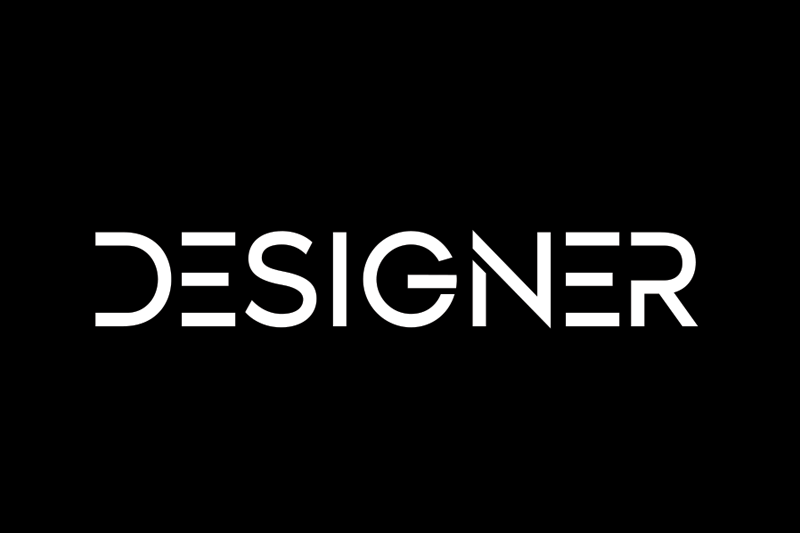
Designer Font
Designer Font is modern Various font. Made for any professional project branding. Made from font designer Dika. it will make your design project more beautiful. It is the best for branding, printing, wedding and quotes. Every letter has a unique and beautiful touch. The font is suitable for any design like branding, fashion, print template, quotes, wedding and etc.